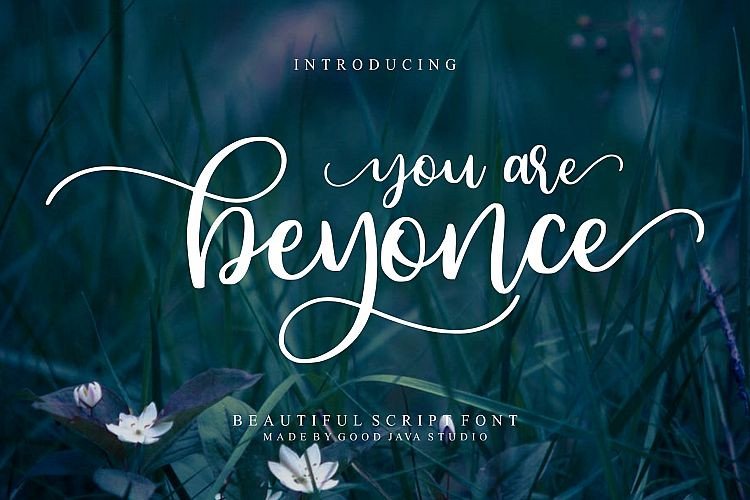
Beyonce Calligraphy Font
This is a beauty calligraphy font style. This font made with simple and elegant hand writing will create stunning calligraphy style. Introducing Beyonce Font! Beyonce a Beauty Font is a natural & modern handwritten font. I’ts Perfect for logo, invitation, stationery, wedding designs, social media posts, advertisements, product packaging, product designs, label, photography, watermark, special events or anything.